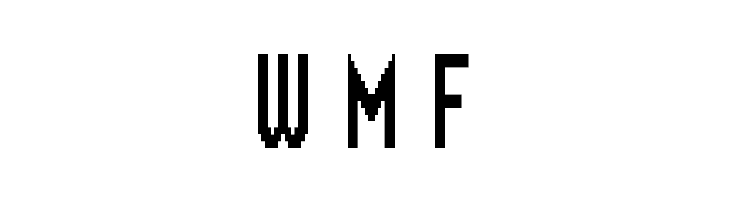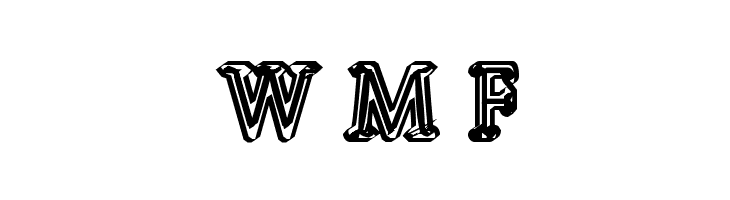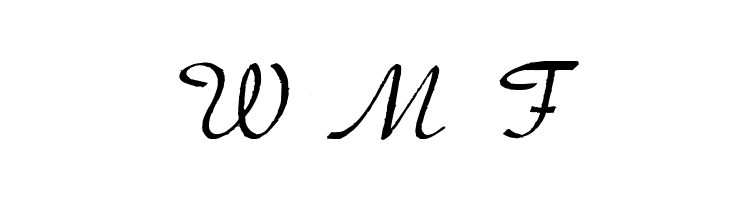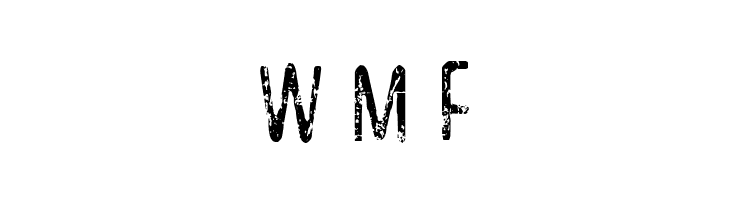
A highly expressive, hand-drawn font with erratic and playful letterforms.
Handwritten, ancient script with organic, flowing forms.
A pixelated, monospaced font with a retro digital aesthetic.
A pixelated, blocky font with a retro digital aesthetic.
A bold, pixelated font with a retro digital display aesthetic.
A pixelated, retro-style font with a blocky, geometric appearance.
A bold, decorative font with intricate, hand-drawn patterns inside each character.
A vintage-inspired font with a handcrafted, whimsical style.
A hand-drawn, vintage-style font with sketch-like, decorative elements.
A modern, clean sans-serif font with uniform strokes and a slightly condensed form.
A bold, decorative font with a layered, three-dimensional effect.
A playful, handwritten font with rounded edges and an energetic flow.
A bold, decorative Gothic font with intricate detailing and historical elegance.
A bold, geometric font with a blocky, pixelated style.
A bold, distressed font with a grunge texture and rugged appearance.